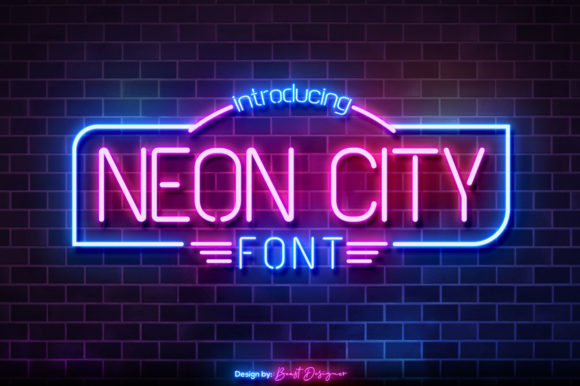
Neon City Font
Neon City is a nostalgic and minimalistic display font. Carefully handcrafted to become your favorite, this font will elevate your projects no matter the topic!